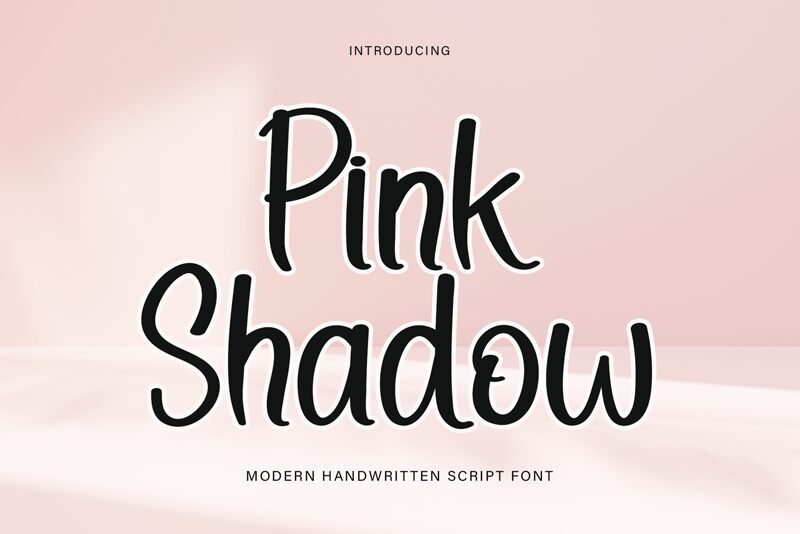
Pink Shadow
Pink Shadow, designed by Etik Fatimah, captures the essence of personal touch with its handwritten style. This font boasts a semi-condensed width that offers an elegant and efficient use of space without compromising legibility. The flowing lines and subtle variations in stroke weight evoke a sense of authenticity and warmth, making it a delightful choice for various creative endeavors.
Its aesthetic appeal lies in the balance between casual charm and stylish flair, making Pink Shadow particularly suitable for invitations, branding projects, and social media graphics where personality is key. The font's handwritten nature allows it to stand out in designs that seek to convey intimacy and individuality.
Embrace the inviting character of Pink Shadow for your next project to infuse your work with a distinctive blend of sophistication and approachable elegance.